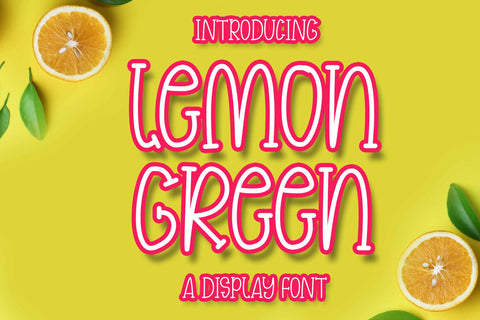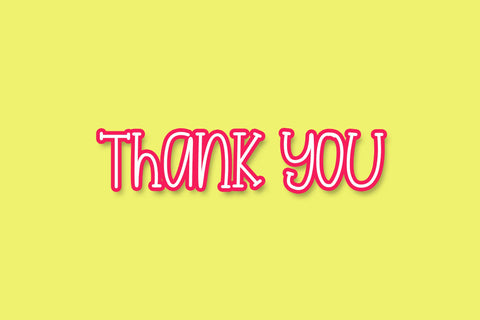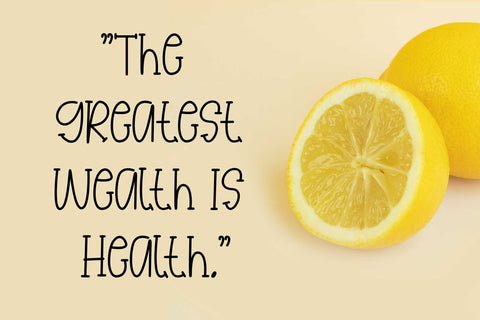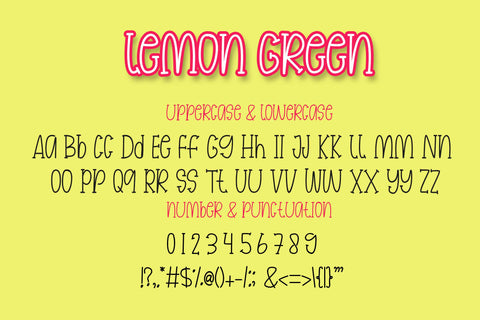
Lemon Green
Lemon Green is a font with a fun and cute look. The font is handcrafted by experienced creatives and add this font to a variety of projects such as children's t-shirts, book cover titles, children's posters, t-shirts, birthday cards, and/or designs. favorite you like